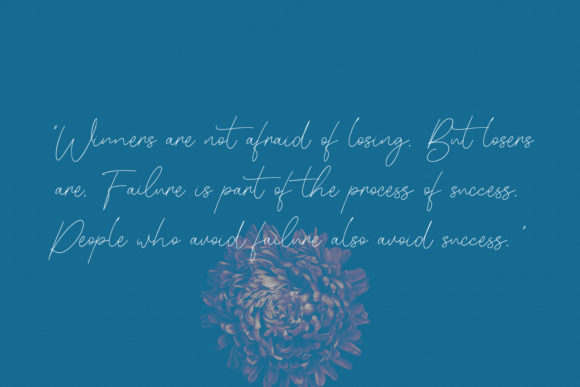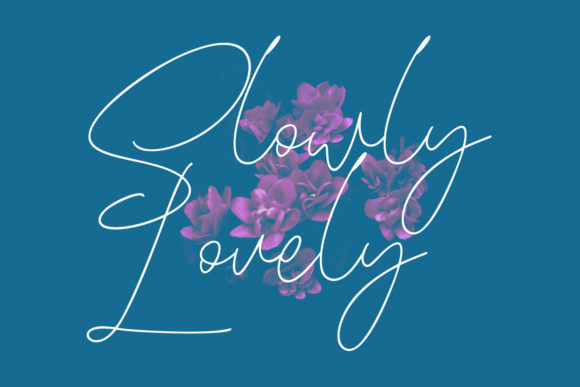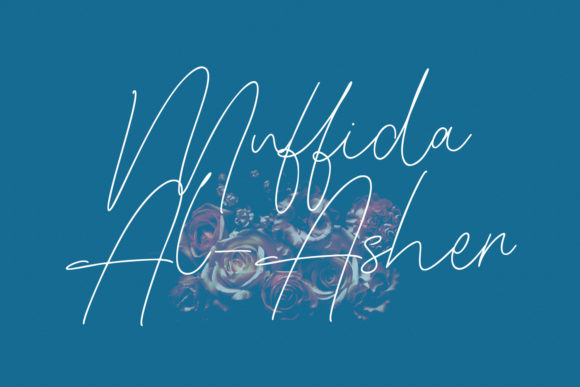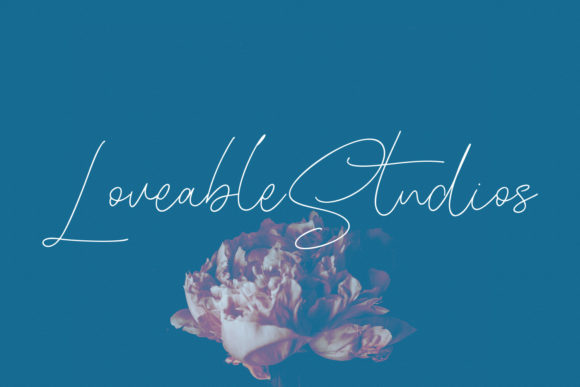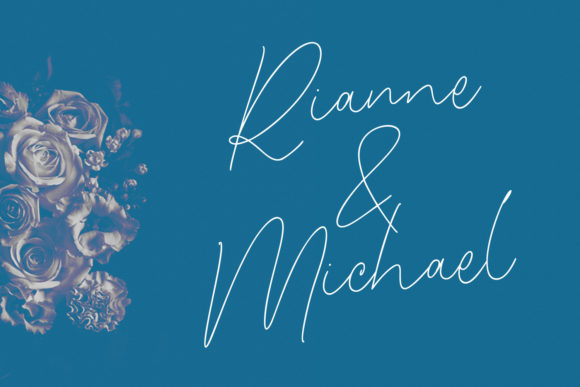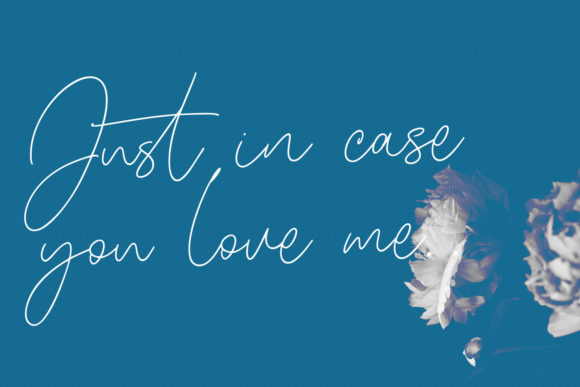
The Charm of Blinkest Script: A Designer’s New Best Friend
I still remember the design project that led me to discover Blinkest Script. I was working on a wedding invitation suite, and my client had a very specific vision: elegant, handwritten, and uniquely charming. As I scrolled through font after font, nothing seemed quite right. That was until I stumbled upon Blinkest Script. Its elegant swirls and charming imperfections immediately captured my attention, and I knew I had found the perfect fit.
An Honest Review of Blinkest Script
- ✨ Elegant and charming, perfect for projects that need a personal touch
- ✅ Highly versatile, suitable for a wide range of design projects
- 💫 Beautifully crafted, with attention to detail in every glyph
- 🎨 Supports OpenType features, allowing for creative exploration
- 🤔 Limited availability of certain characters, requiring some creative workaround
- ⚠️ Not ideal for very large or very small text sizes, due to its handwritten nature
The Story Behind Blinkest Script
Blinkest Script was designed with the intention of capturing the elegance and charm of handwritten typography. The designer aimed to create a font that feels personal, yet sophisticated enough for formal designs. Through careful attention to detail and a passion for typography, Blinkest Script was born — a font that quickly became a favorite among designers and crafters alike.
| Font Name | Blinkest Script Font |
| Is Blinkest Script suitable for body text? | No, Blinkest Script is best used for headings, titles, and short paragraphs due to its handwritten nature and limited readability at small sizes. |
| Does Blinkest Script support OpenType features? | Yes, Blinkest Script supports OpenType features, including glyphs, ligatures, and stylistic alternates, allowing for a high degree of customization. |
| Is Blinkest Script available in different weights or styles? | Blinkest Script may offer variations, but it’s primarily designed as a single, elegant style. Check the font package for specific details. |
Blinkest Script is a versatile and charming font that’s sure to elevate your designs. Whether you’re working on wedding invitations, business cards, or any project that needs a personal touch, Blinkest Script is an excellent choice. Its elegant swirls and charming imperfections make it a standout in the world of typography.